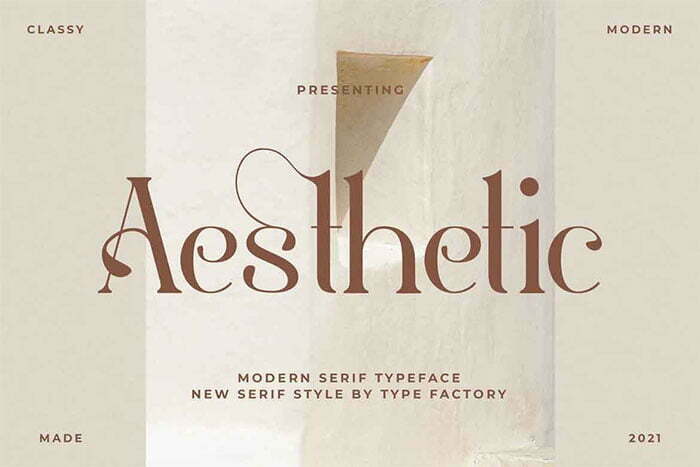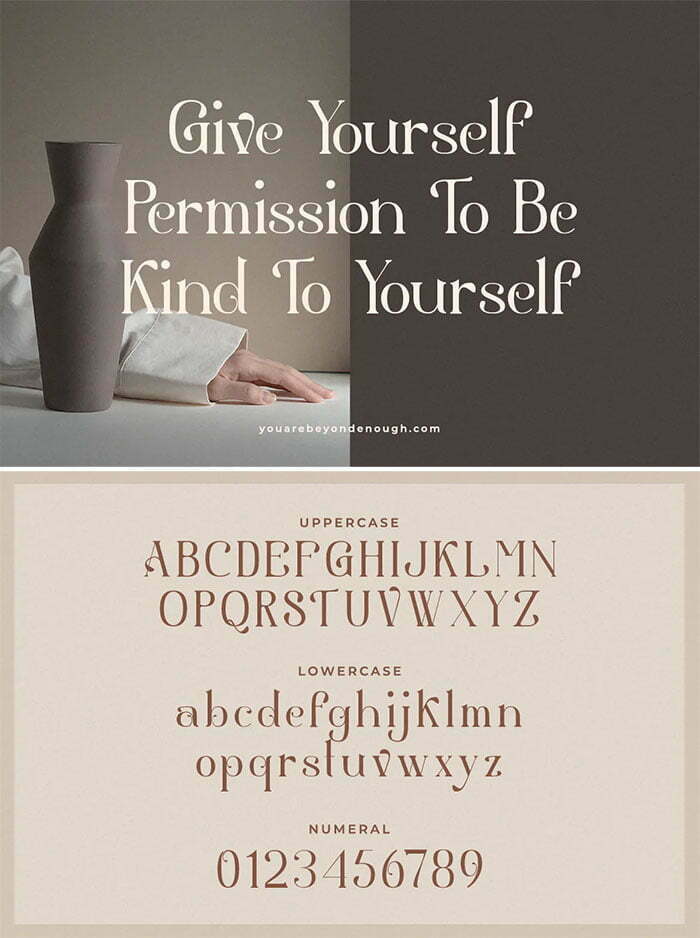
Aesthetic Font
Aesthetic Font Style
Gyahegi is modern and elegant serif font with beautiful icons. Fall in love with its completely different and timeless style and use it to create spectacular designs!